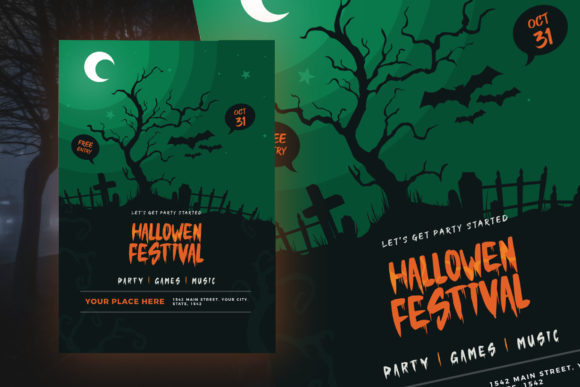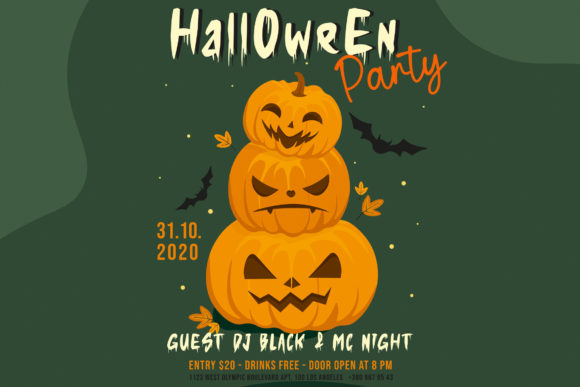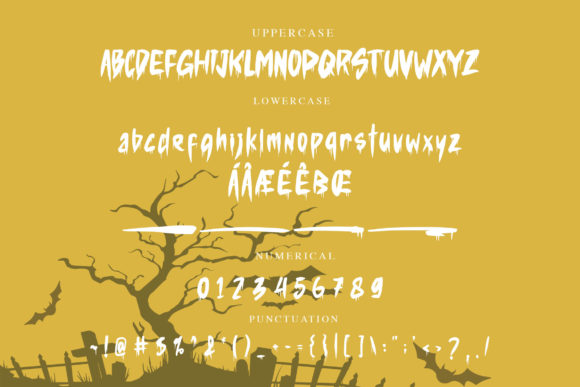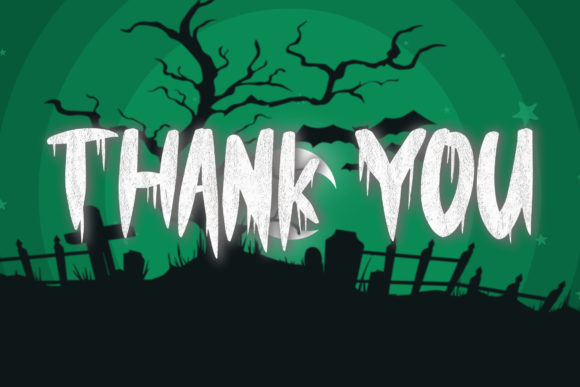
Introduction to Homemam Font
Homemam is a thick-lettered and spooky display font.
It is perfectly suitable for any Halloween-related project or crafty idea The only limit is your imagination.
Key Features of Homemam Font